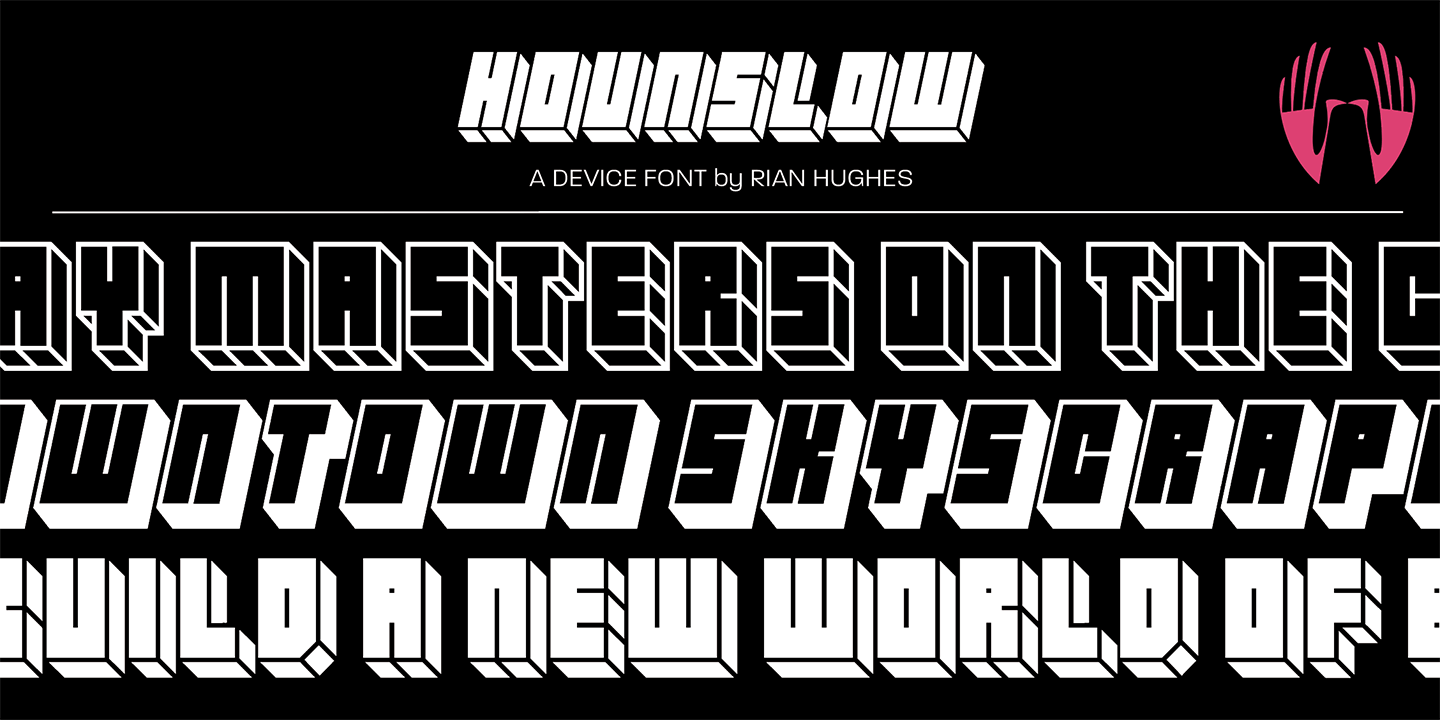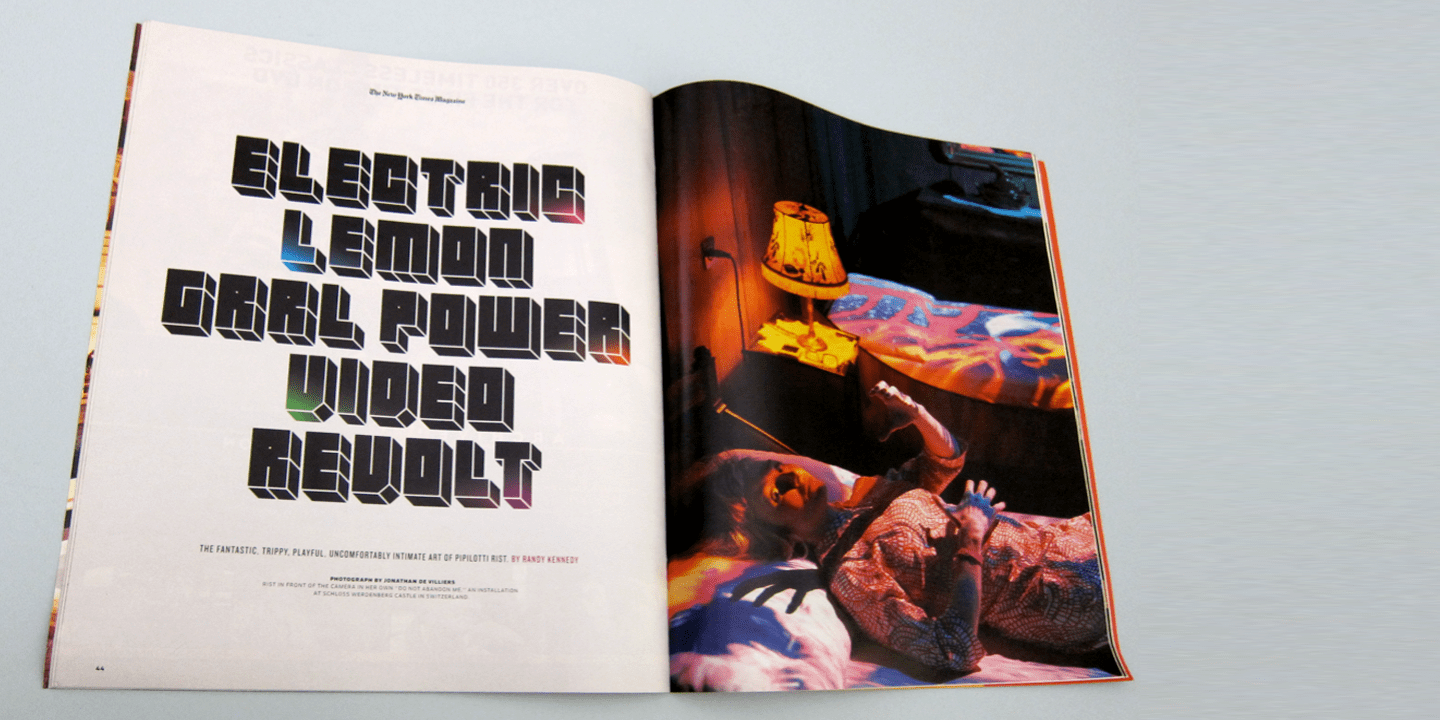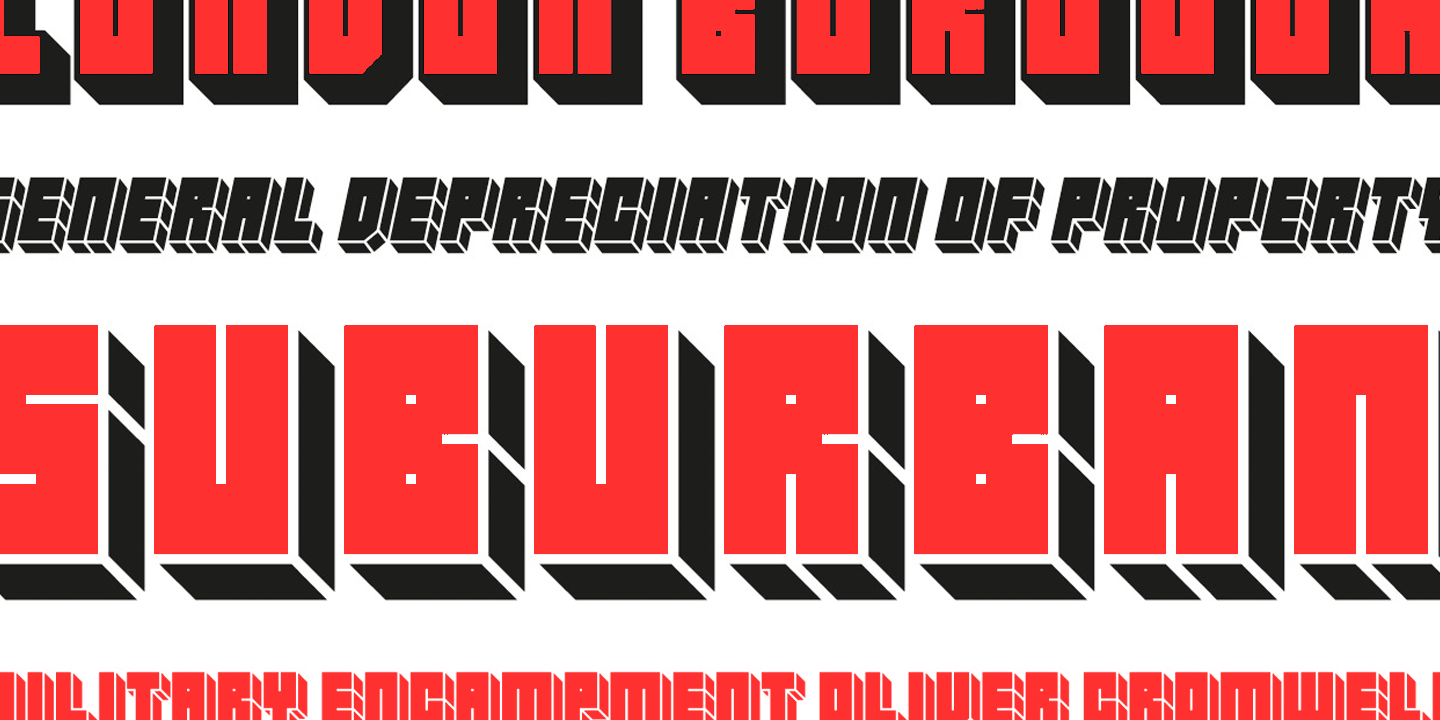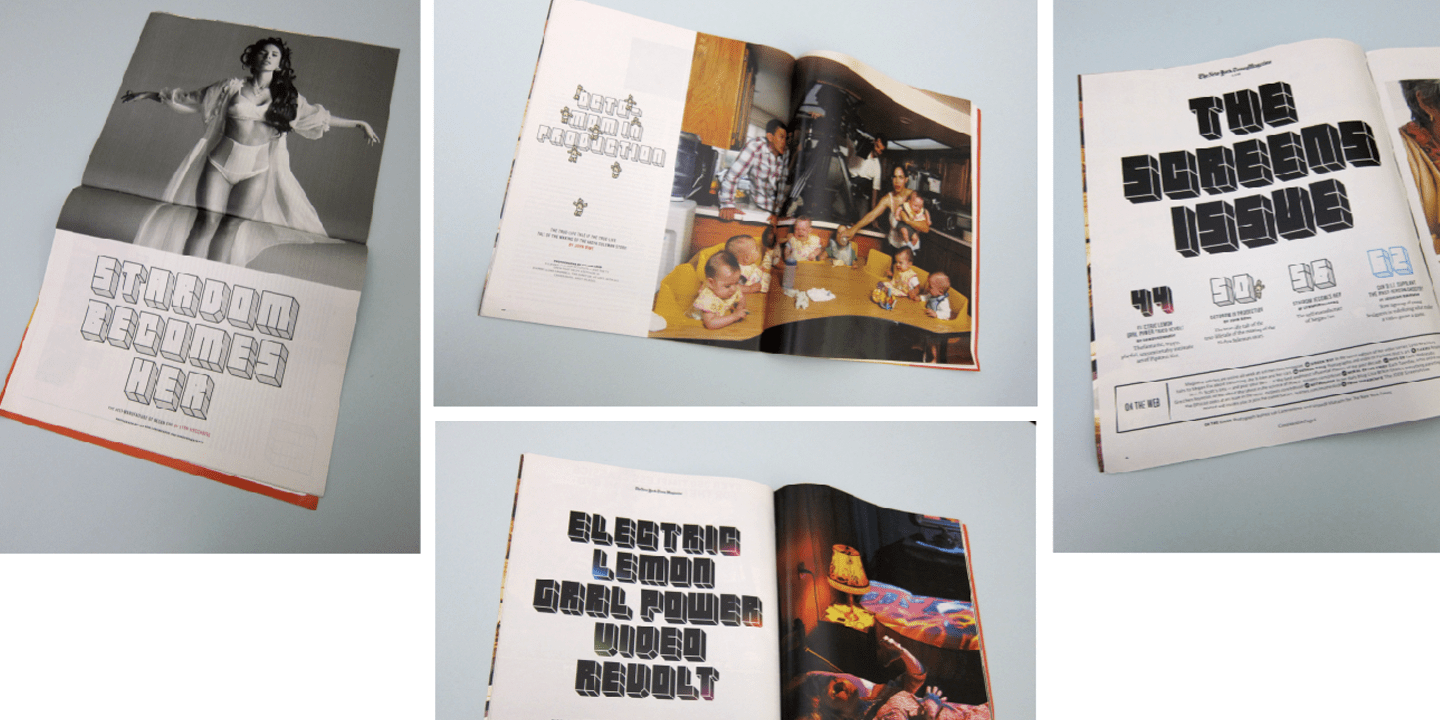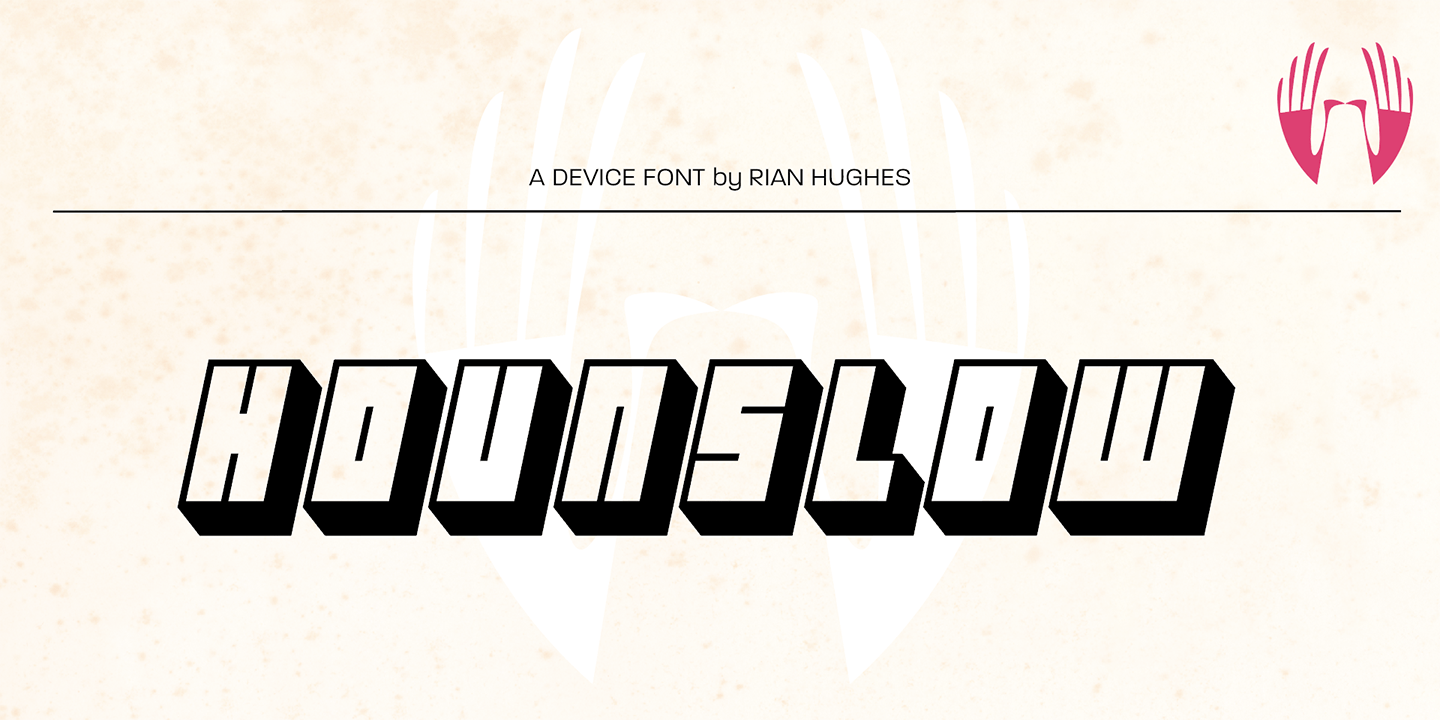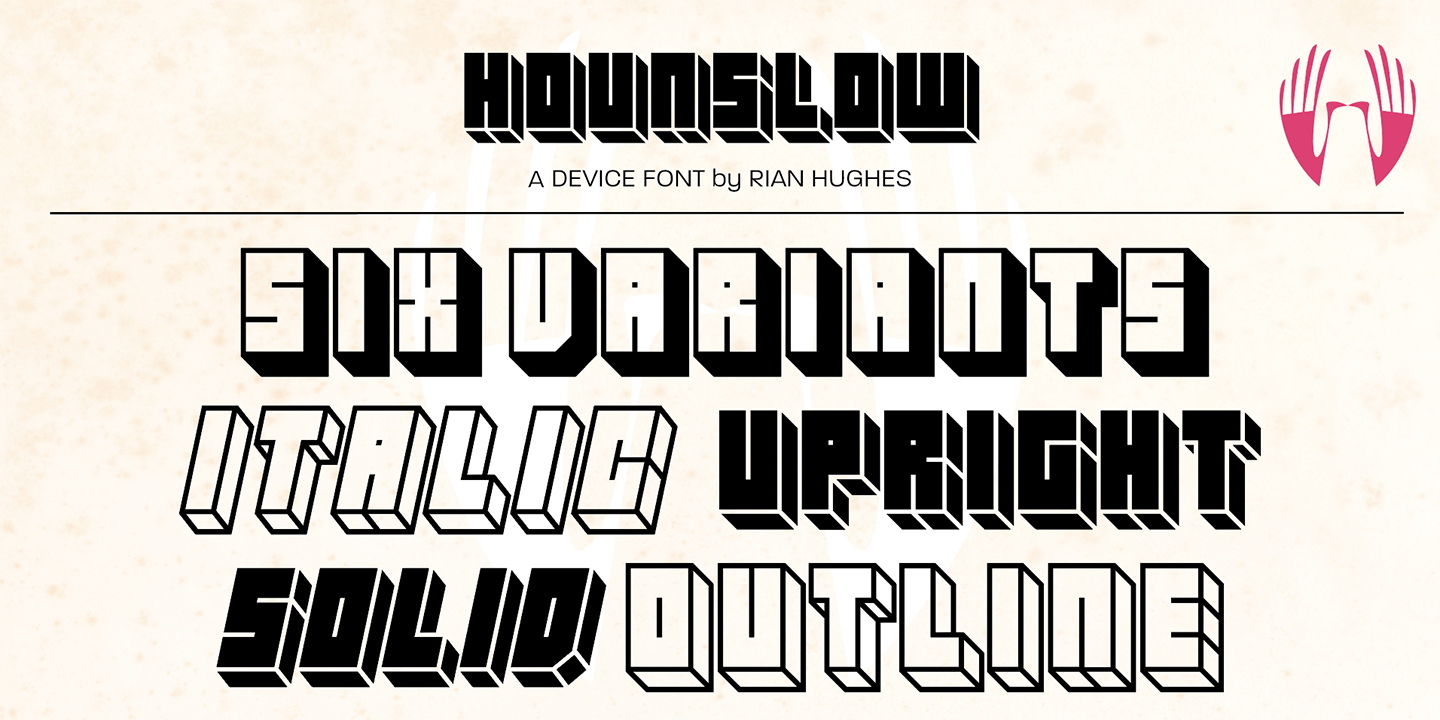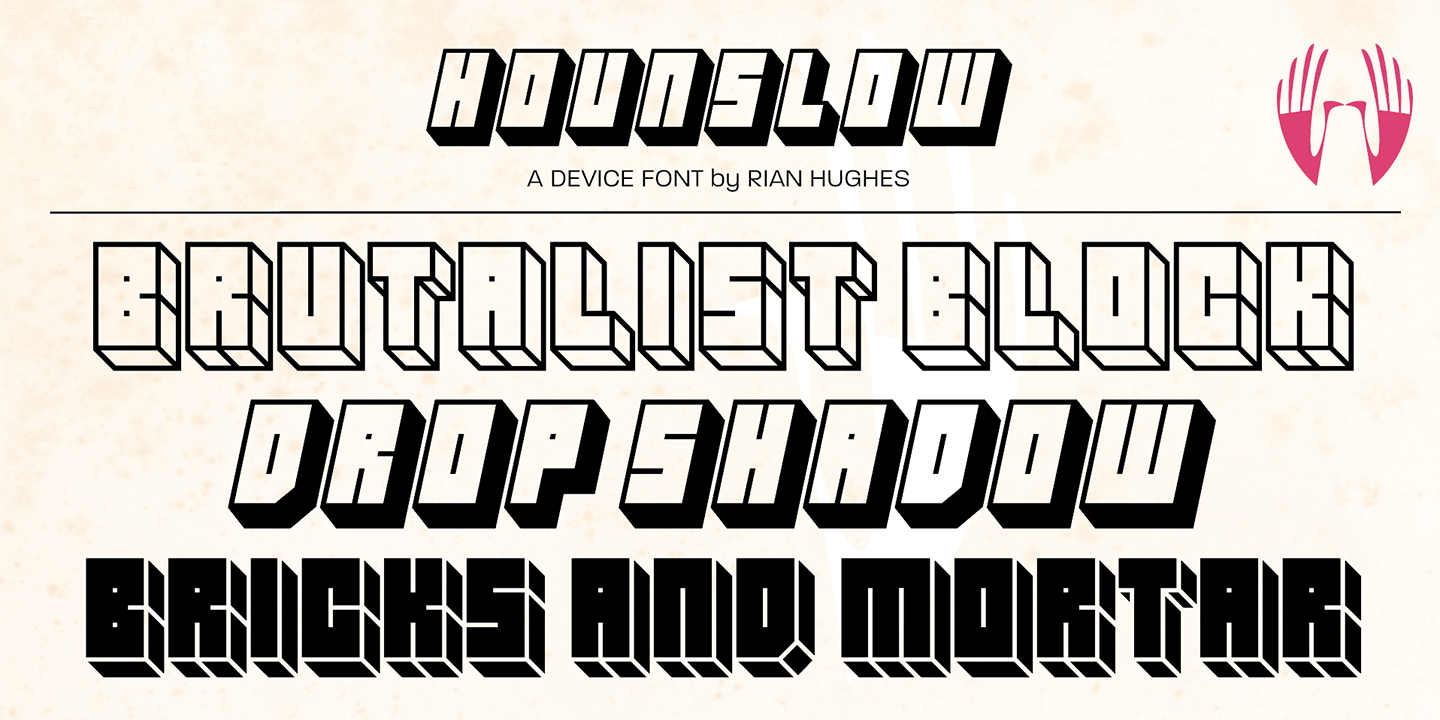
Hounslow
Font Family by Device Fonts
Hounslow is closely related to Acton in structure, and takes the latter’s simple block construction into the third dimension. Three variants – open, solid and shadow – can be freely mixed in one setting for effect. Originally designed solely in the italic variant, an upright was added by request. A further unreleased set with a range of line weights was later commissioned by the New York Times magazine, and used extensively in their television supplement.